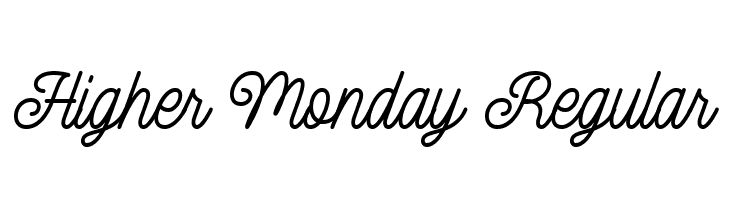
( Fonts by John Vargas Beltrán )
A whimsical and playful font with swash caps and decorative elements.
( Fonts by John Vargas Beltrán )
A playful, hand-drawn font with whimsical and organic strokes.
A bold, cursive script font with elegant curves and smooth transitions.
A flowing, cursive font with elegant loops and smooth transitions.
A stylish and versatile cursive font with elegant loops and smooth transitions.
A lively and flowing script font with elegant curves and smooth transitions.
A delicate, cursive font with elegant loops and smooth transitions.
A flowing, cursive font with elegant loops and smooth transitions.